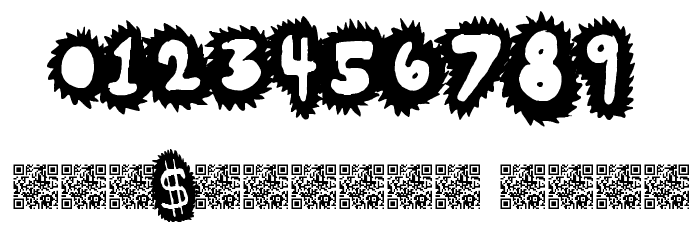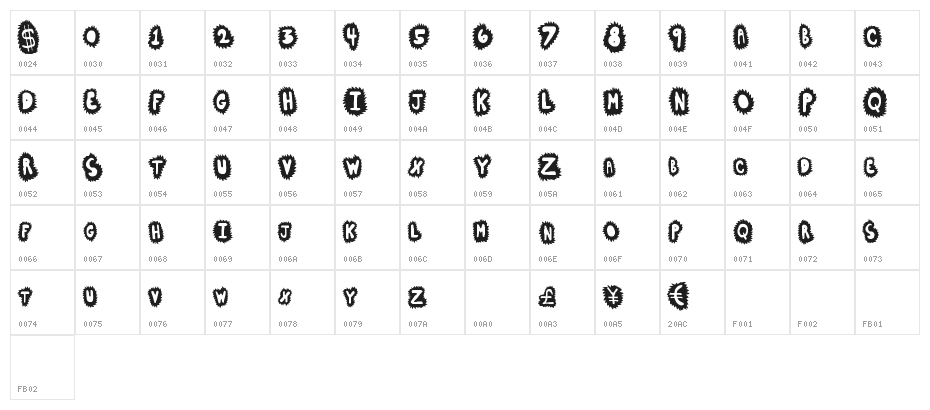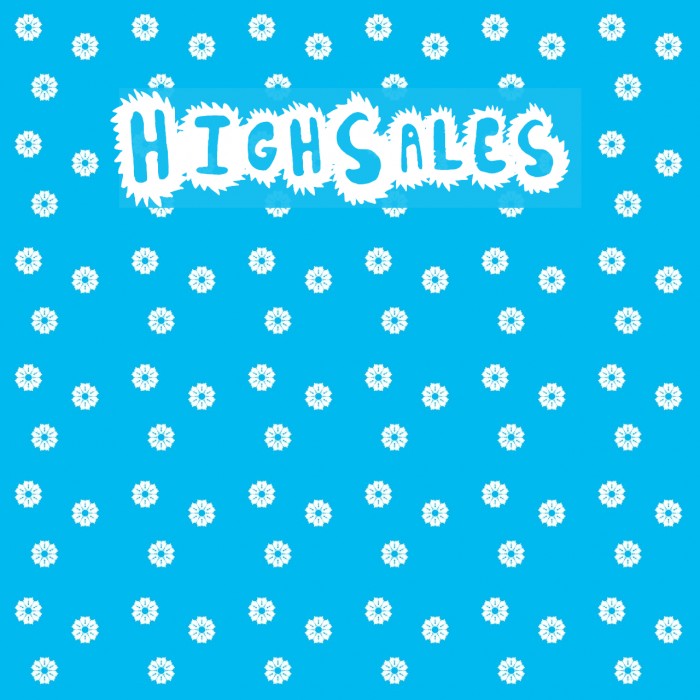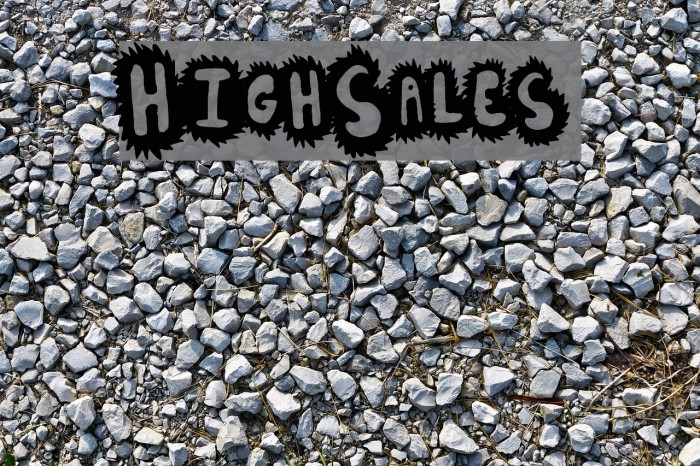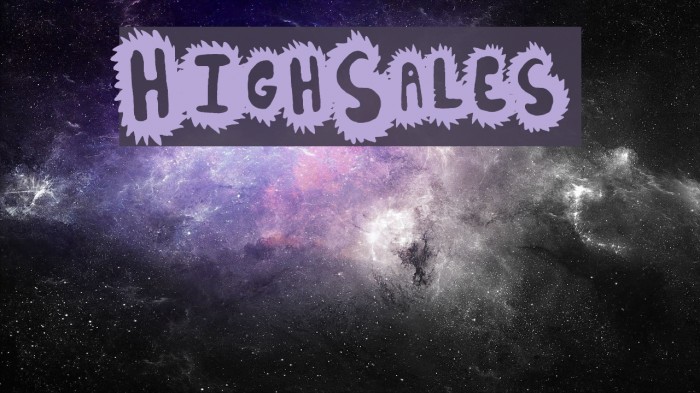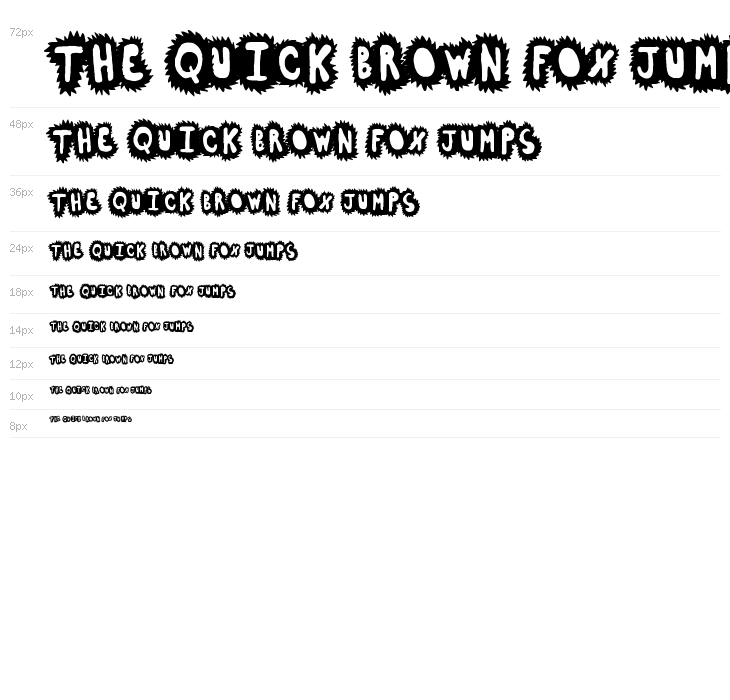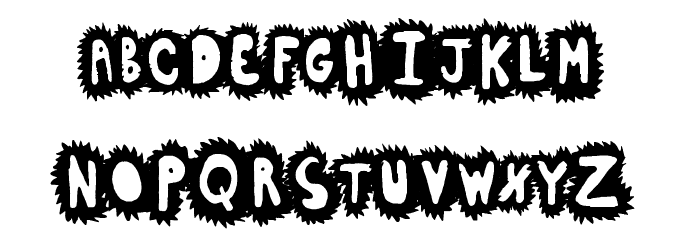
HighSales Font
HighSales Description
This font features a bold, playful design with each character enclosed in a jagged, starburst-like outline. The letters are uppercase and lowercase, with a consistent, rounded form that gives a friendly and approachable feel. The numbers and special characters follow the same style, maintaining uniformity across the set. The overall appearance is dynamic and energetic, making it suitable for attention-grabbing designs. The thick outlines and filled-in characters create a strong visual impact, ideal for projects that require a bold statement.
| Overall Style | Playful, Energetic, Bold |
| Proposed Projects | Perfect for children's book covers, playful branding, event posters, and eye-catching headlines. |